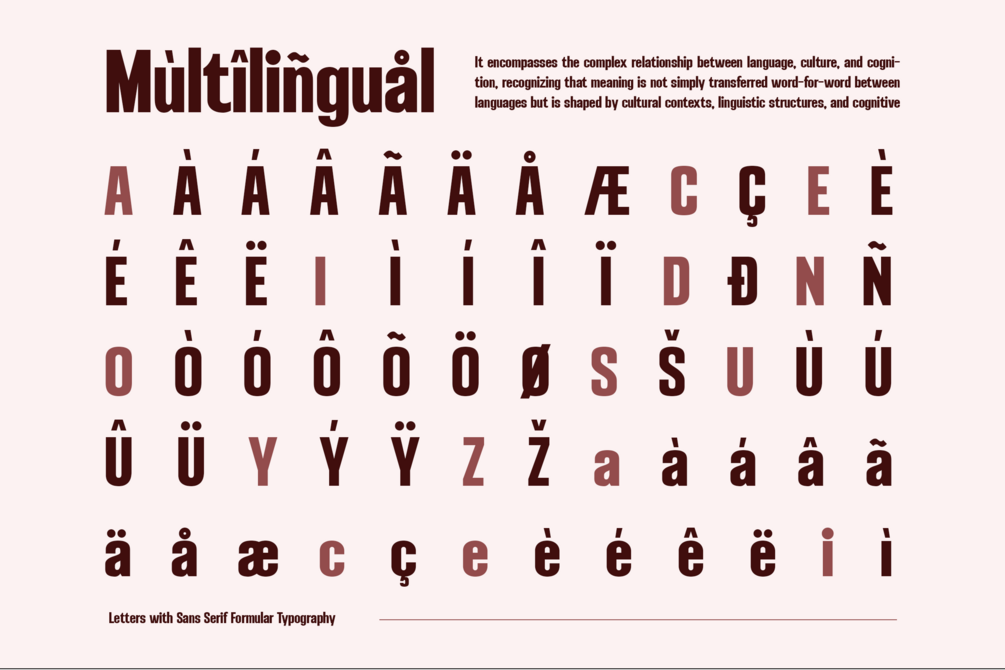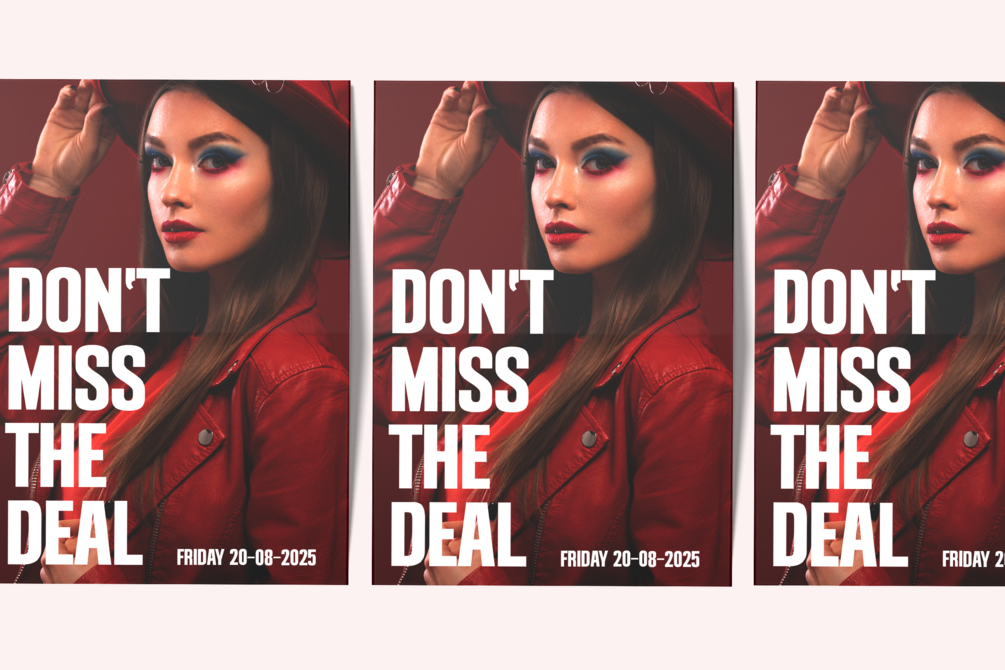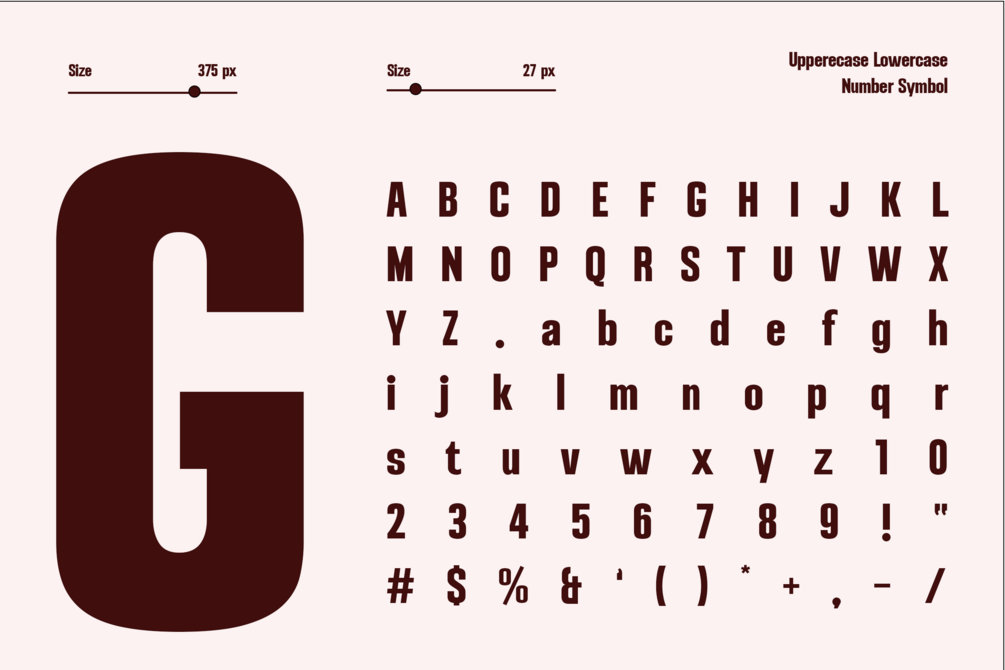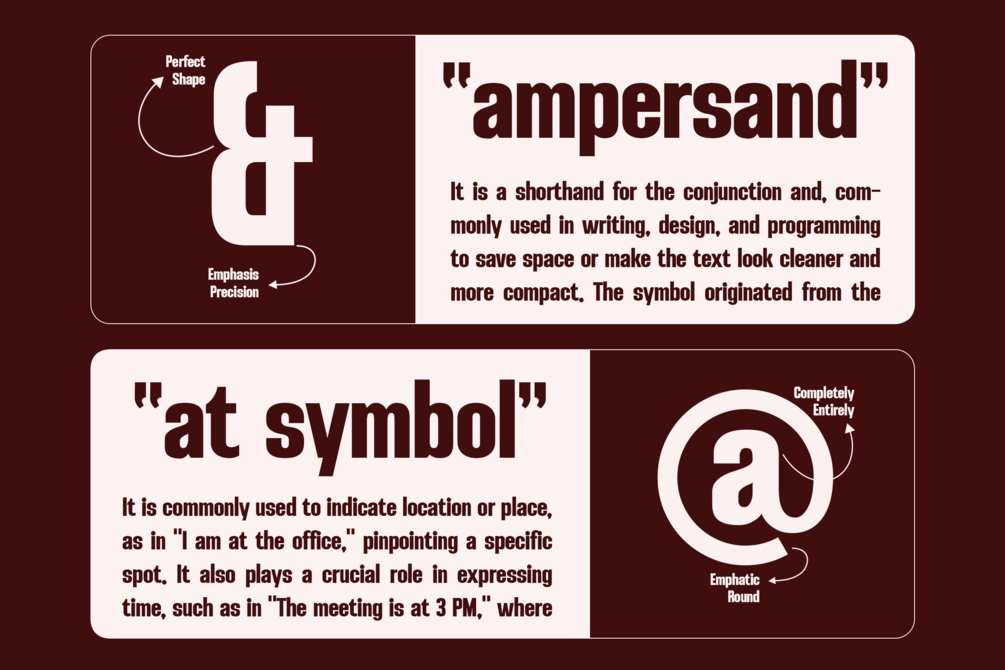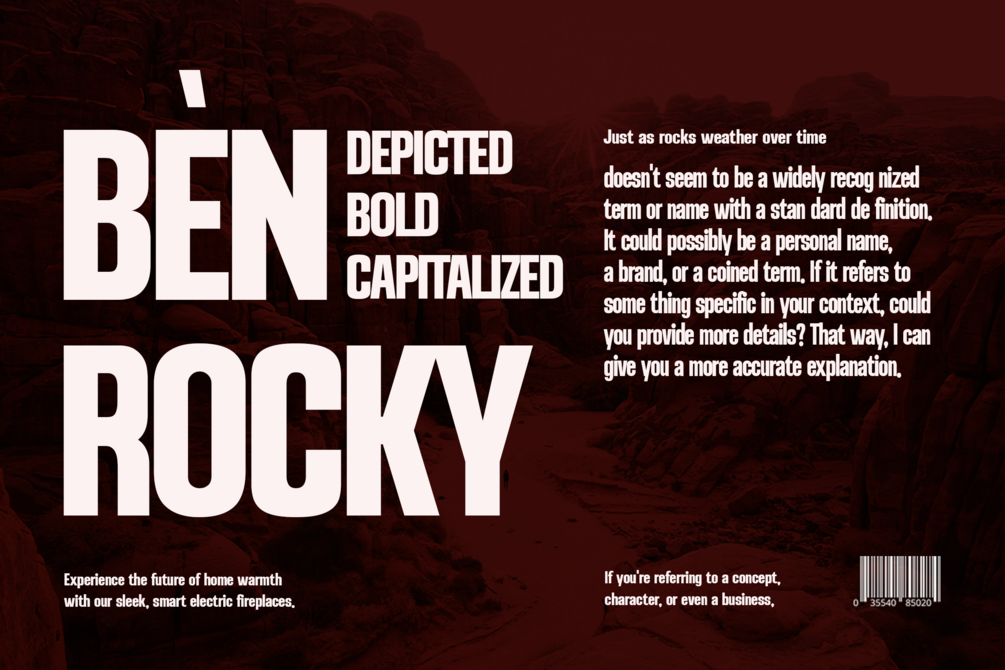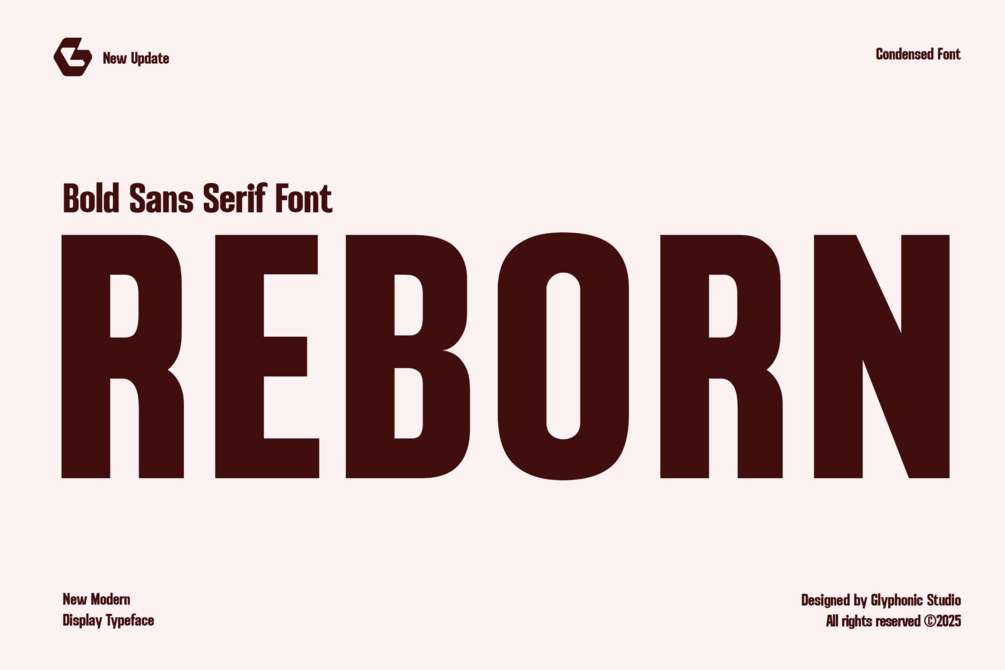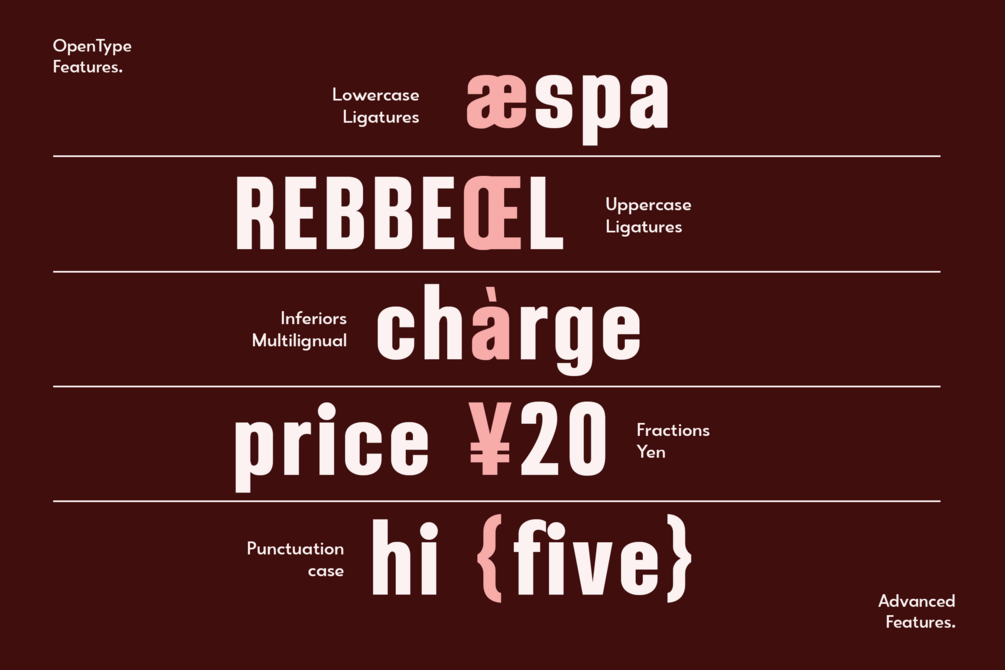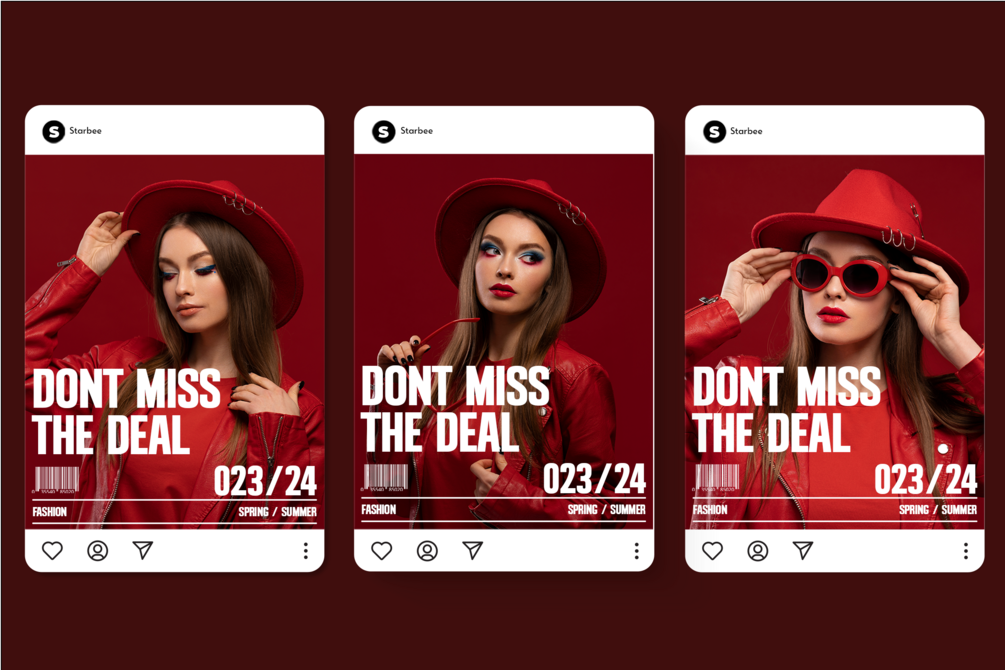
REBORN | Bold Sans Font
REBORN is a Bold Sans Font that blends elegance with bold style.
Perfectly suited for headlines, branding, logos, packaging, editorial layouts, it’s crafted to leave a lasting impression.
With its high contrast strokes, modern sans, and future style, REBORN brings personality and sophistication to any design.
Whether you're designing for fashion, lifestyle, or artistic visuals, this typeface offers versatility and refined style.
+ Uppercase & Lowercase
+ Numbers & Punctuation
+ Multilingual Support
Make your design bold, refined, and timeless with REBORN.